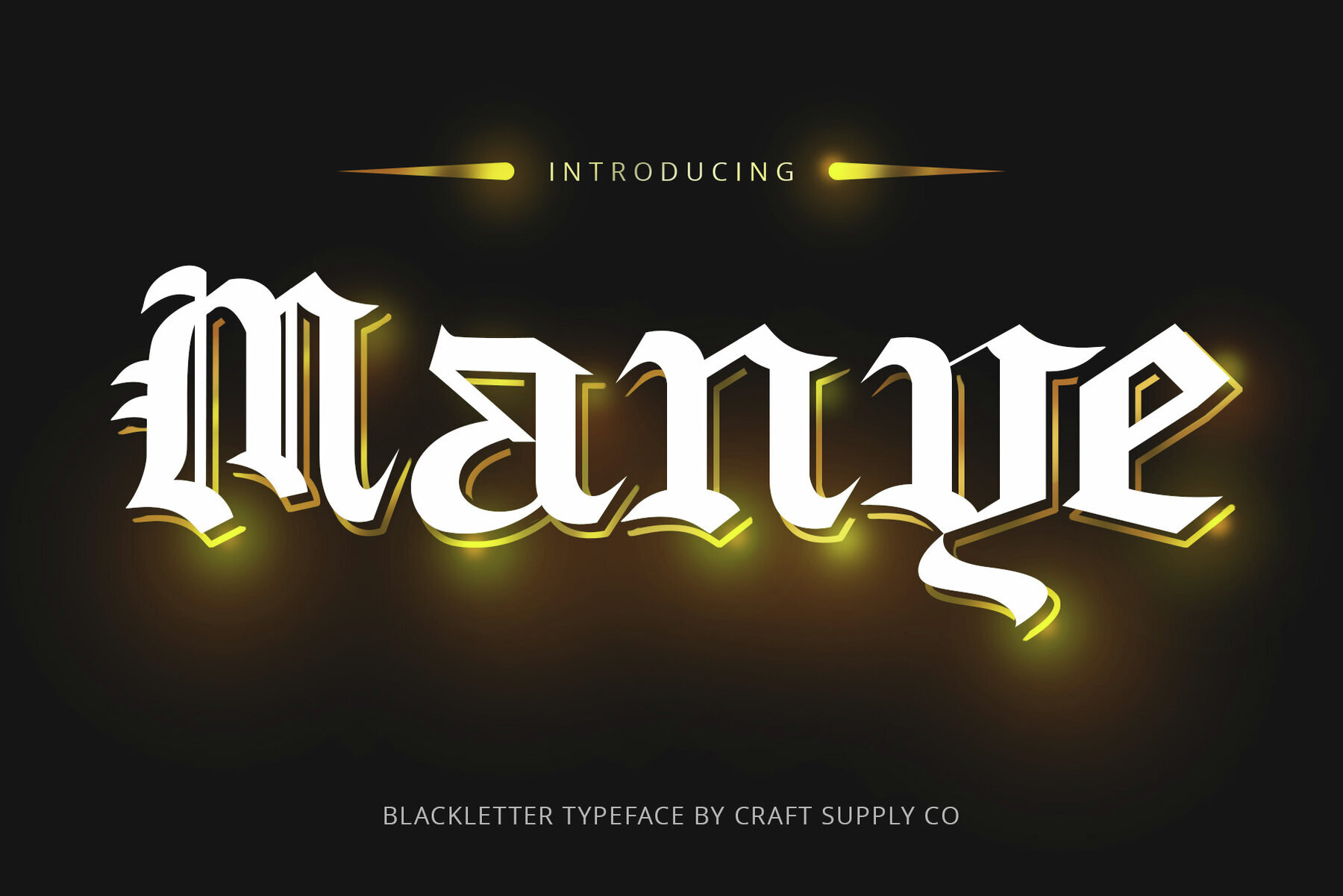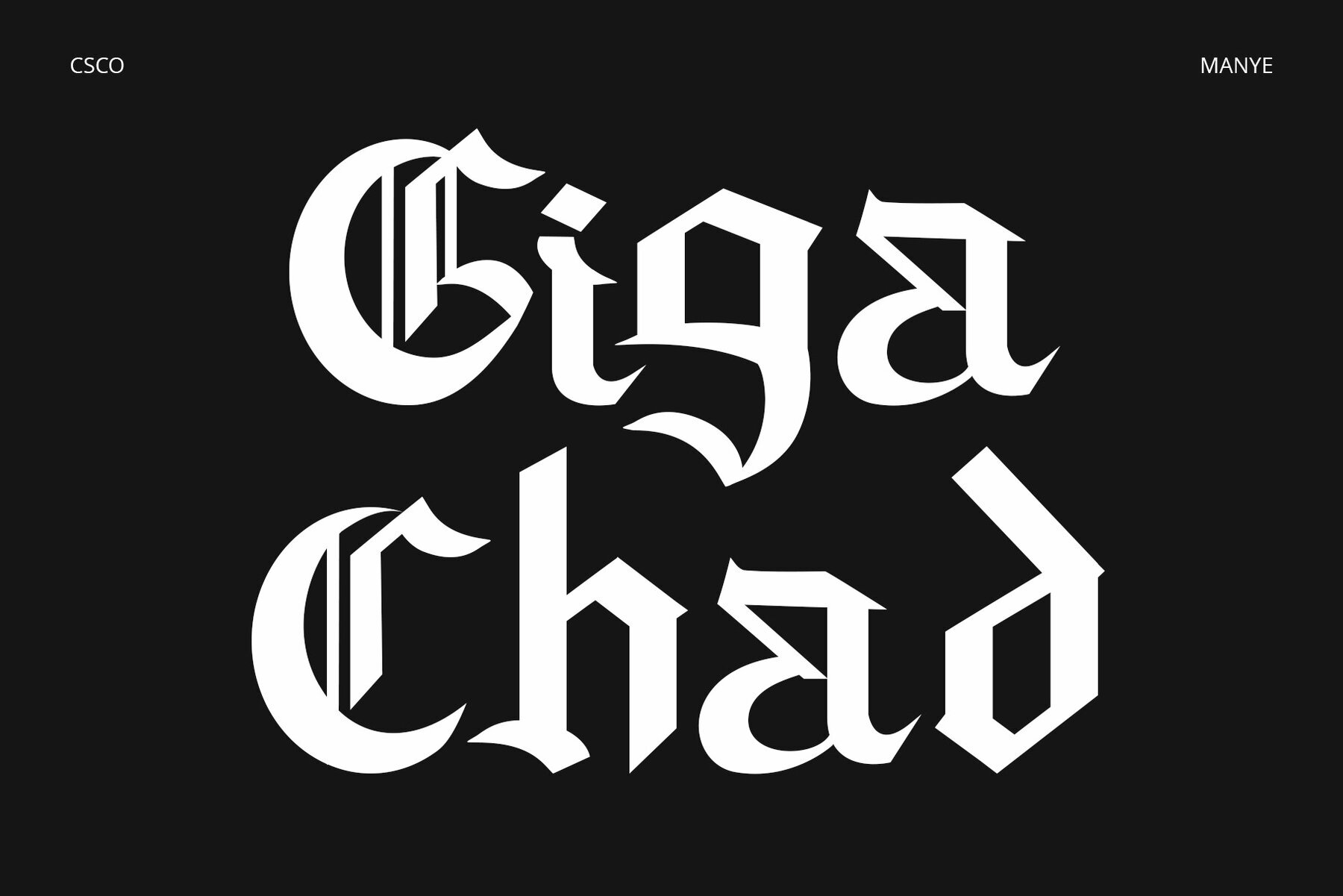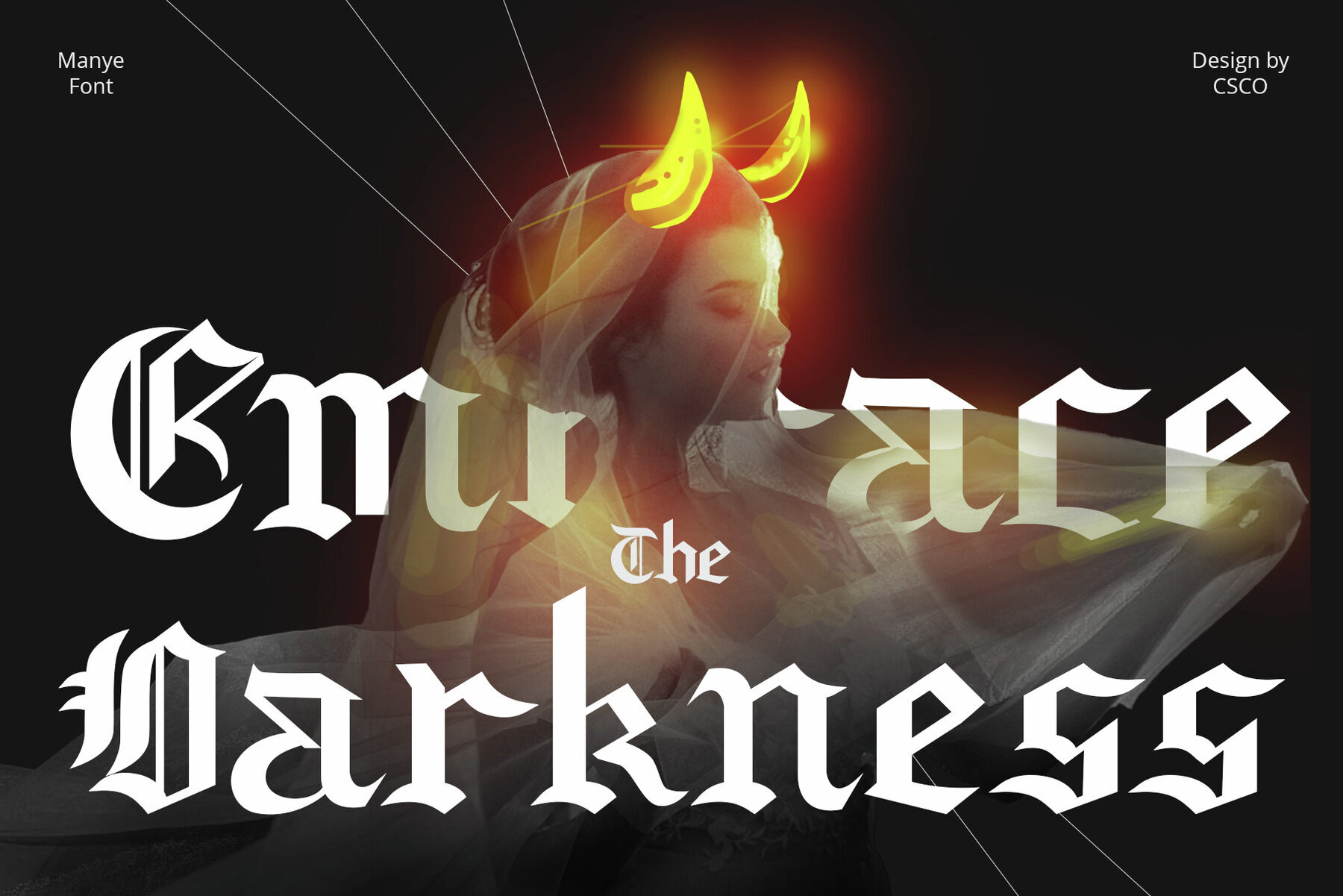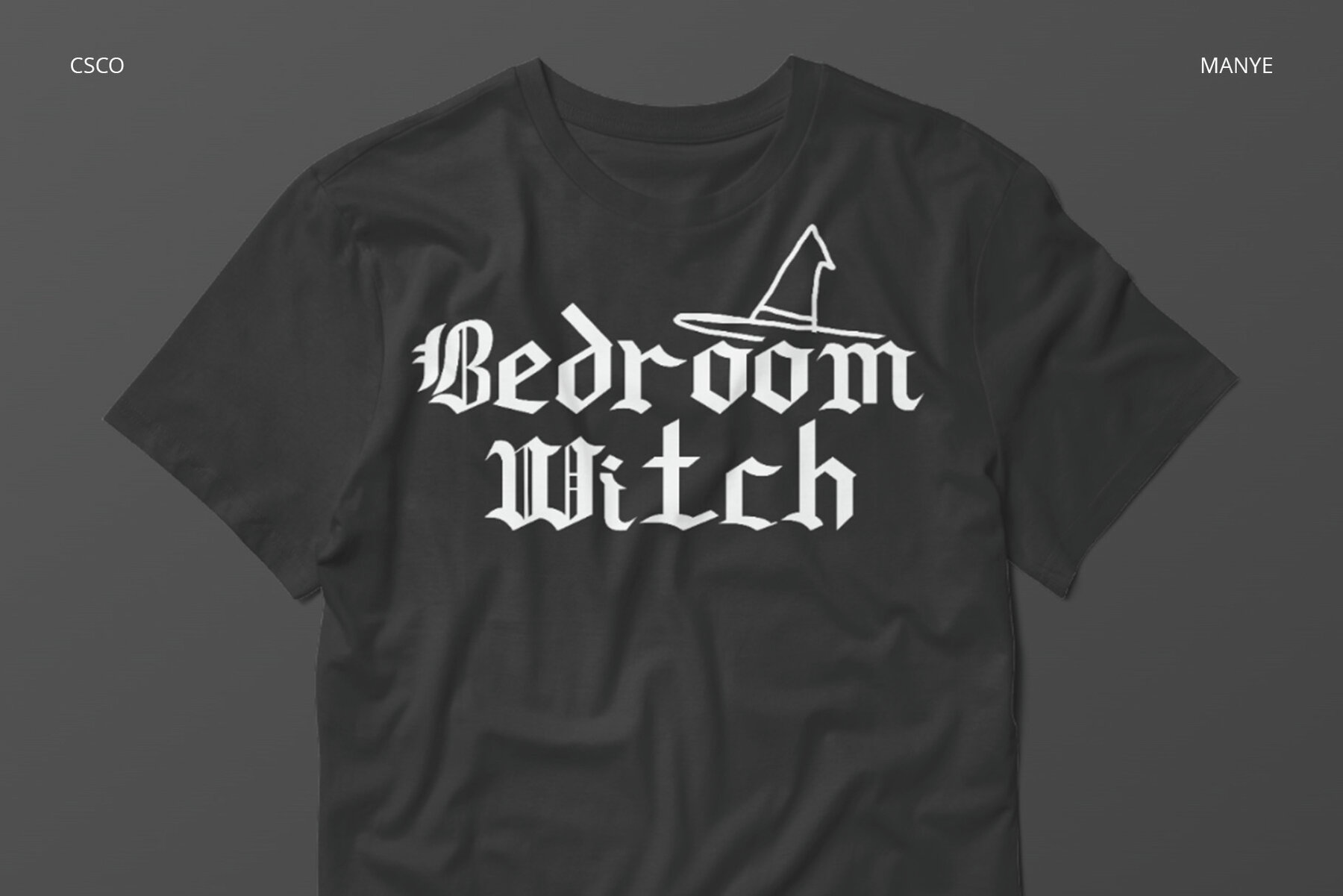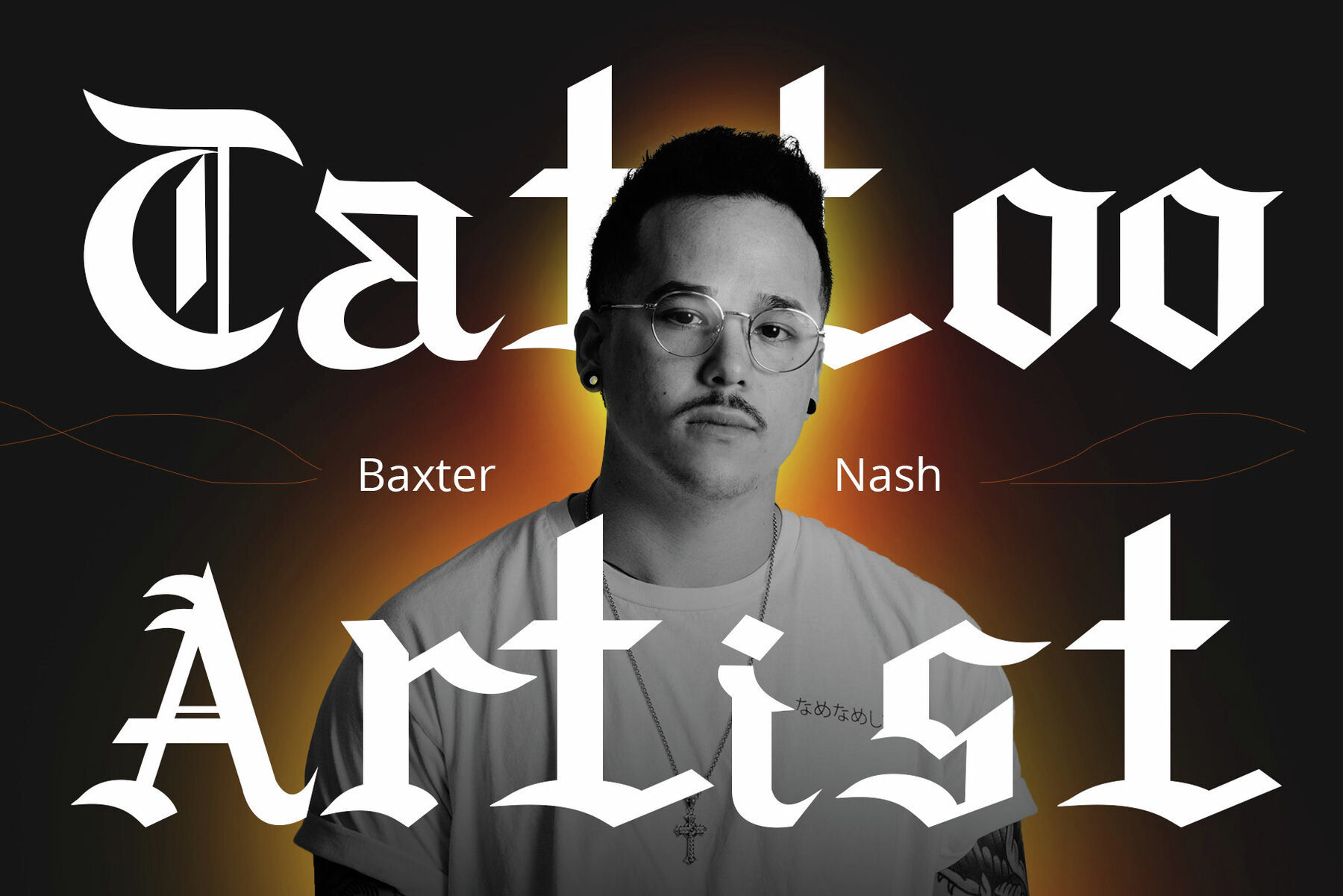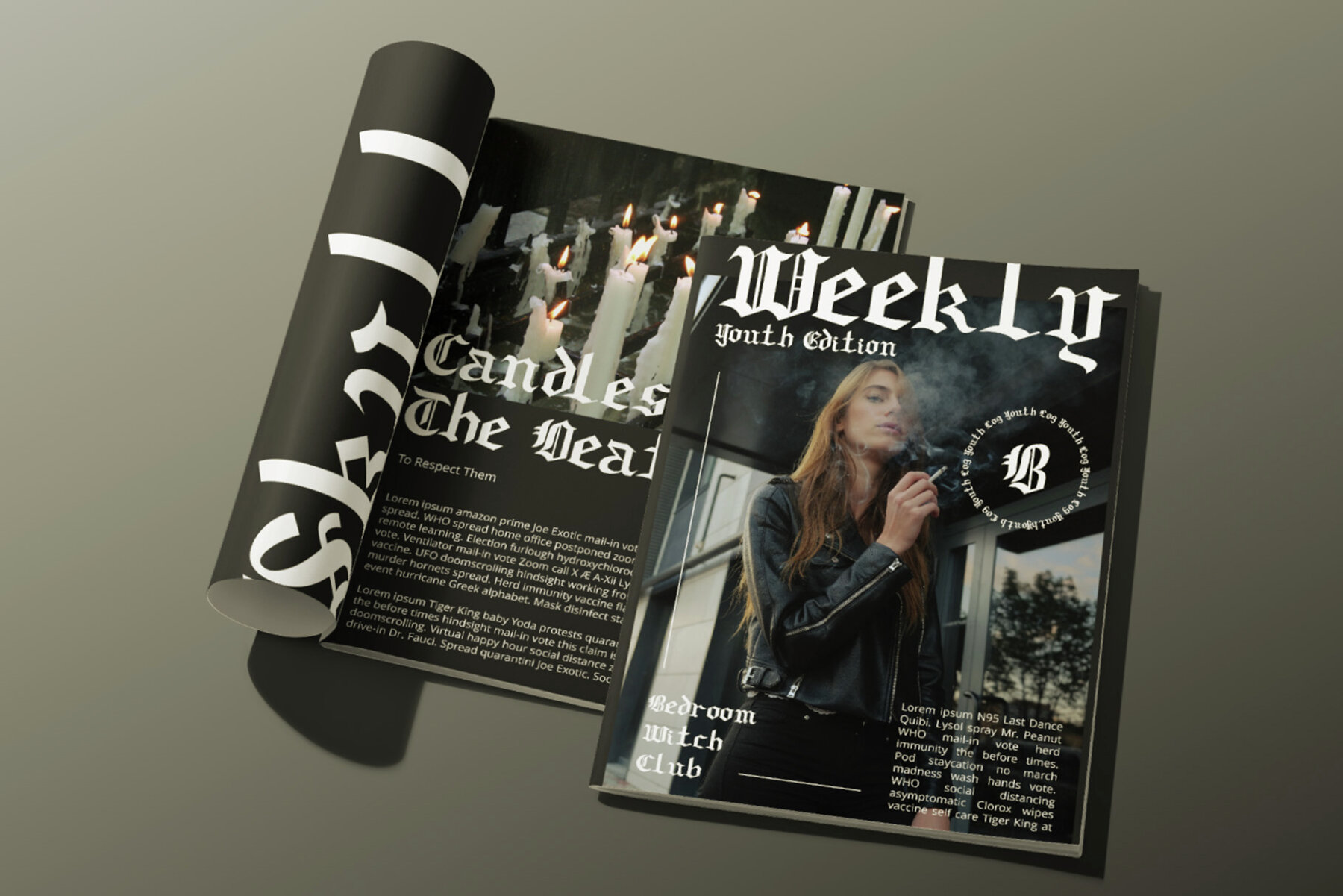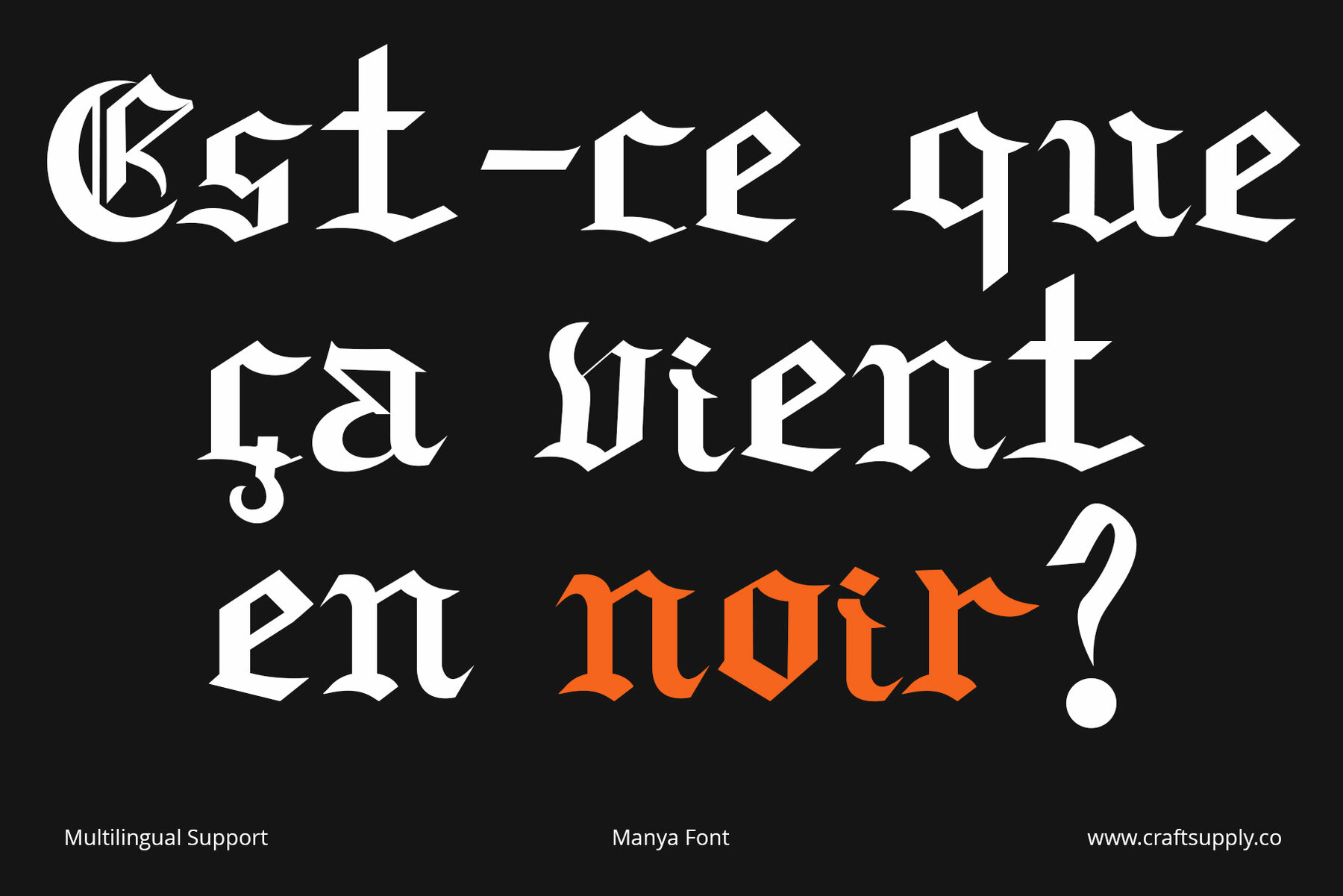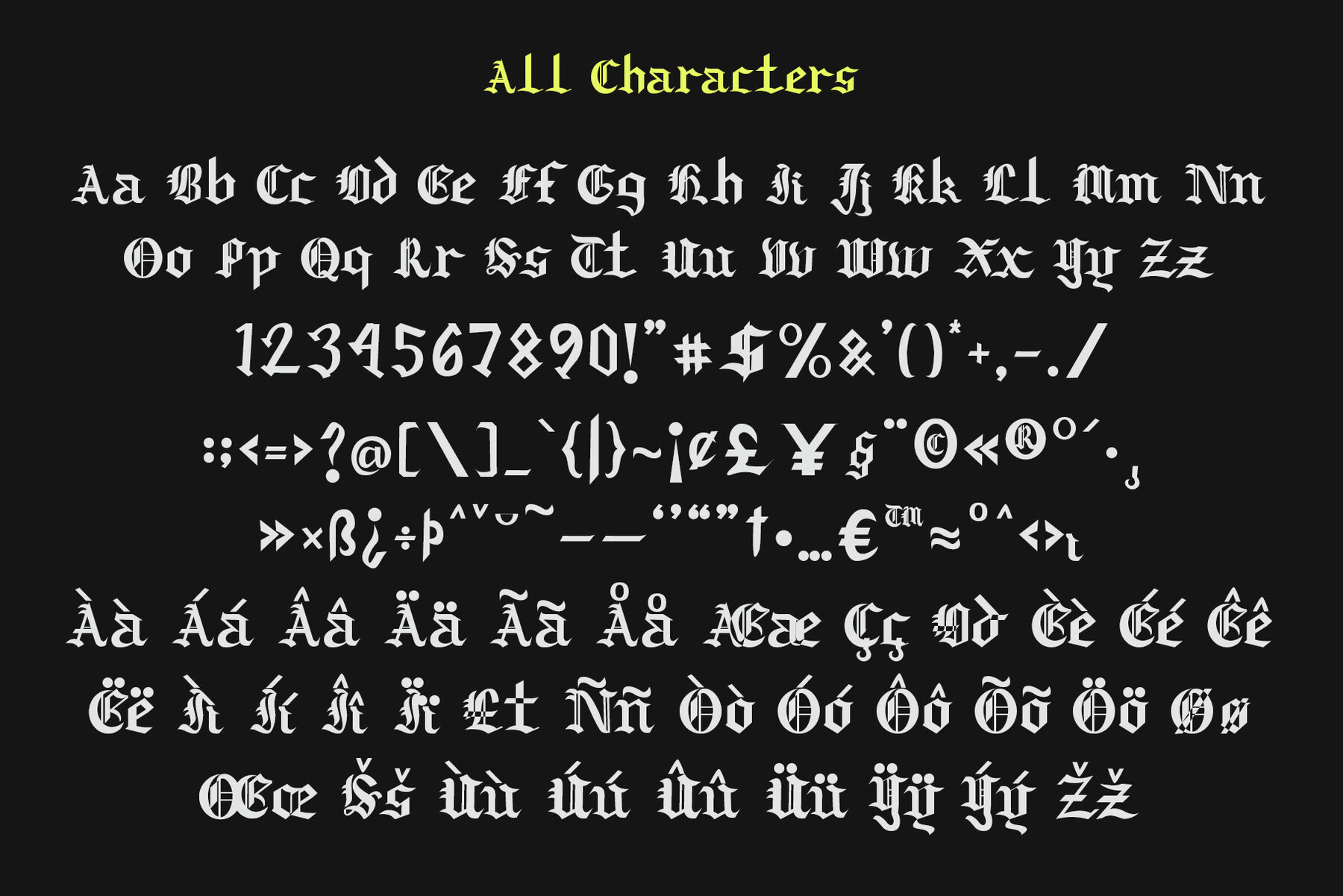
Manye Font
Manye is a captivating Blackletter Font designed to add a touch of uniqueness to your display and design projects. Exuding distinctive elegance, Manye is the ideal choice for creating attention-grabbing displays. Manye's versatile design seamlessly complements a wide range of creative endeavors, enhancing both style and functionality.Manye: A Distinctive Blackletter Display Typeface
Distinctive Elegance
Versatile for Creative Projects